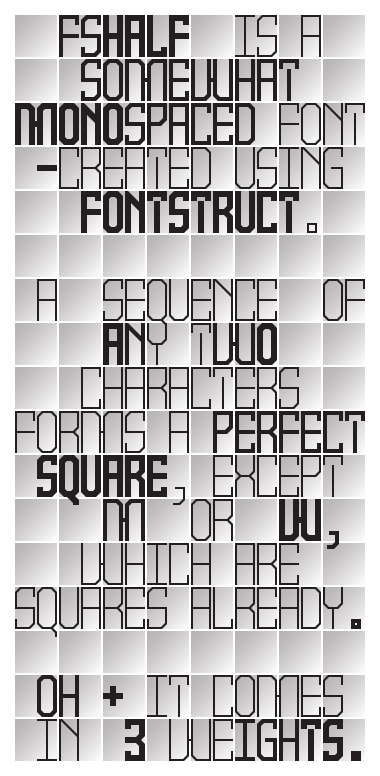
fs Half
thalamic
fsHalf is a somewhat monospaced font -created using fontstruct.
A sequence of any two characters forms a perfect square, except m or w, which are squares already.
Oh + it comes in 3 weights.
An ingenious design - well shown in the sample. 10/10
This is cool. I love the M and W, and this idea is refreshing. :)
I love it. Type & sample !